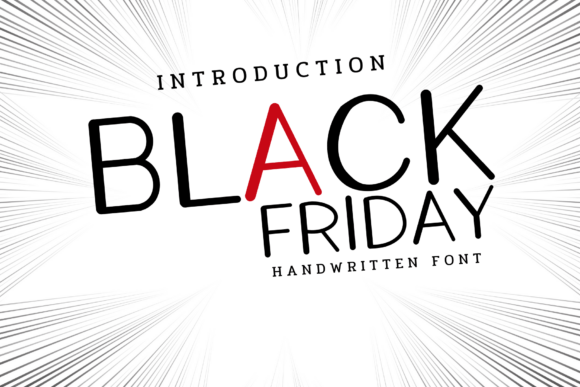
The Ultimate Design Companion for Black Friday Frenzy
You know that rush of excitement when you’re brainstorming ideas for a big marketing campaign? The thrill of creating something that grabs attention, drives sales, and leaves a lasting impression on your audience? For designers, that moment is often the starting point for a creative journey that requires the perfect blend of style, sophistication, and urgency. And that’s where the Black Friday Font comes in – a bold, modern handwritten font that captures attention and sets the tone for any sales event.
This versatile font is more than just a trendy design element; it’s a valuable tool for designers who want to convey a sense of fun, creativity, and urgency without sacrificing legibility. Whether you’re creating limited-time offers, retail signage, or digital ads, the Black Friday Font is the ideal choice for brands that want to make a statement and drive sales.
Key Features of Black Friday Font
- Font Family: Black Friday is a modern sans-serif font family designed to evoke a sense of luxury and sophistication.
- Size: The font family includes 6 weights, ranging from Light to Black, allowing for a wide range of design applications.
- Unique Characteristics: Black Friday features a unique blend of geometric and organic shapes, giving it a distinctive and modern feel.
Black Friday Font Review
I recently had the chance to try out the Black Friday Font, and I’m excited to share my honest review with you. ✨ One thing that works incredibly well is the font’s modern and sleek design. It’s perfect for creating a bold and eye-catching visual identity for your brand. The font is highly legible, even at smaller sizes, making it ideal for digital use.
Another standout feature is the font’s flexibility. It comes in a variety of weights and styles, allowing you to customize it to fit your brand’s unique voice and aesthetic. The font also includes a range of ligatures and swashes, adding an extra layer of sophistication and elegance to your designs.
- ⚠️ Limited language support: The font only includes a basic character set, which may limit its use for non-English languages.
- ⚠️ Not suitable for small text: While the font is highly legible, it’s not ideal for small text sizes, where it may become difficult to read.
Overall, I’m impressed with the Black Friday Font. It’s a great choice for anyone looking to create a bold and modern visual identity. While it has some limitations, it’s a solid addition to any designer’s toolkit. I’d definitely recommend giving it a try.
Use Black Friday font to create eye-catching advertisements, promotional materials, and social media posts for holiday sales. To get the most out of the font, experiment with different sizes, colors, and combinations to create a unique look. Consider pairing it with bold, bright colors to grab attention.
Alternatives to Black Friday Font for Designers
1. Rockwell Font
Rockwell Font is a classic serif font that resembles a traditional black font. It is suitable for use in formal and professional settings, such as business reports, magazines, and books. Rockwell Font is similar to Black Friday Font in its classic and elegant feel, but it has a more subtle and refined appearance.
2. Arial Black Font
Arial Black Font is a sans-serif font that is similar to Black Friday Font in its bold and modern appearance. However, Arial Black Font is more versatile and can be used in a wide range of applications, from digital interfaces to print materials. It is a good choice for designers who want a bold and eye-catching font without the classic feel of Black Friday Font.